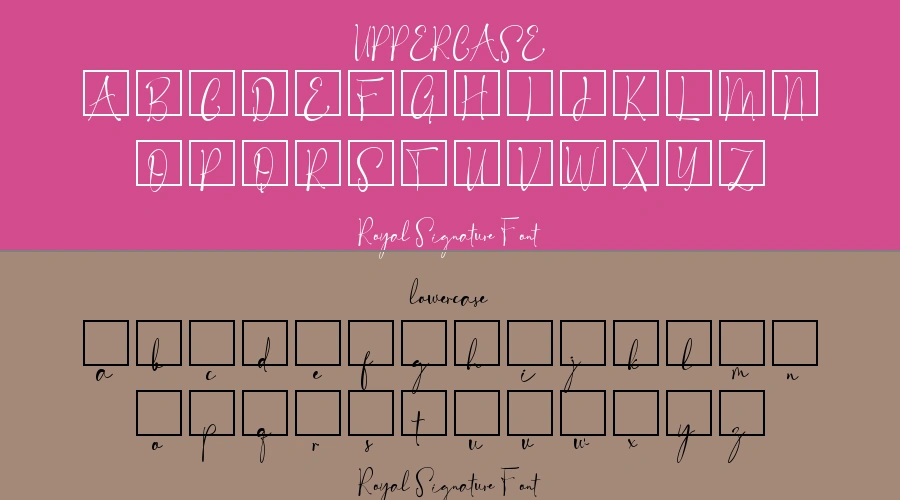
About Royal Signature Font
Designed with precision, Royal Signature Font merges playful elements with consistency in every character. This versatility makes it particularly effective for technical manuals, where originality and design heritage directly impact communication quality. Each letterform demonstrates meticulous craftsmanship.
Technical excellence shines through elements like script connections and oldstyle figures, enhancing typographic versatility. In specification sheets settings, Royal Signature Font proves its worth through superior language switching. The thoughtful execution of character width and historical context ensures professional results.